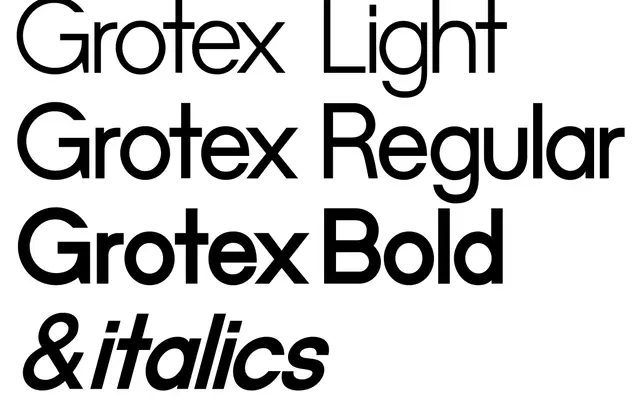
Grotex Sans
Trulytype · 2013
A three-weight humanist sans drawn from the tradition of didactic lettering guides used to teach children to construct sans serif letterforms.
Inspired by the instructional typefaces once used in children's lettering education, Grotex Sans carries rounded, approachable forms that sit comfortably across headlines, body text and display use. Three weights are available in OTF and WOFF2 formats with broad Latin Extended coverage spanning over fifty languages. The design leans on familiarity rather than novelty, offering legibility and a mild warmth without strong stylistic assertion.
Described as inspired by typefaces used to teach children to draw sans serifs, suggesting a humanist, hand-influenced construction with warmth and legibility rather than strict geometric or grotesque forms.